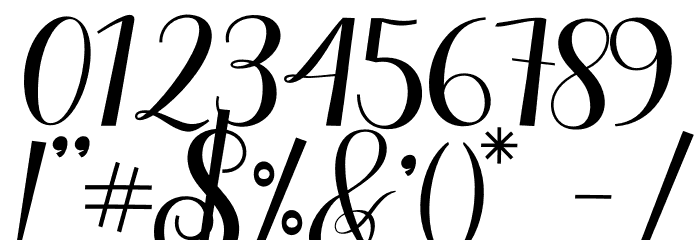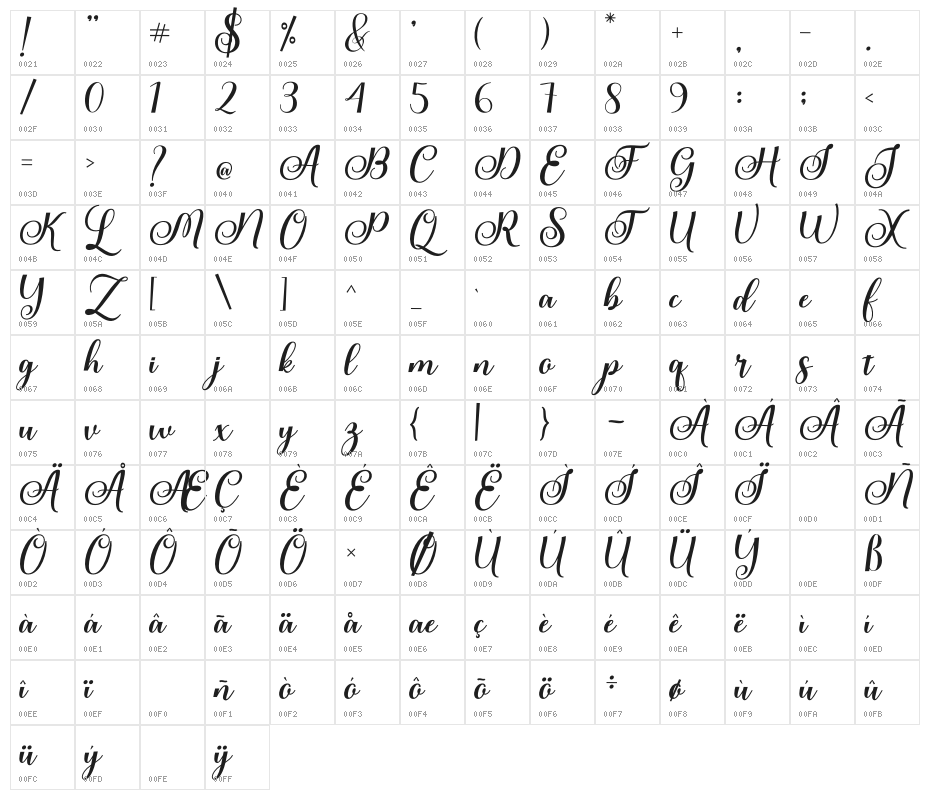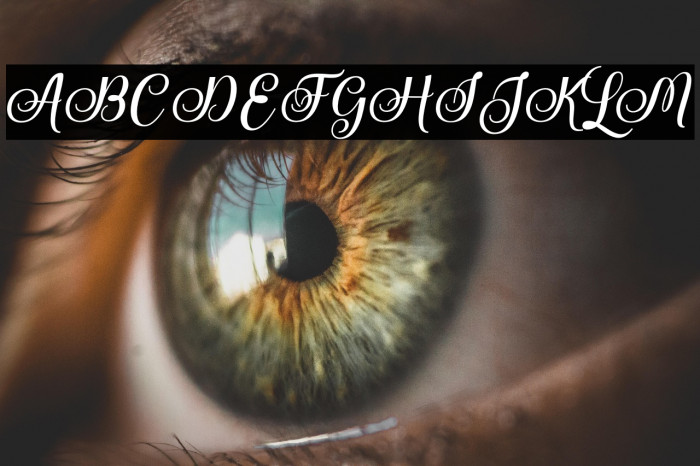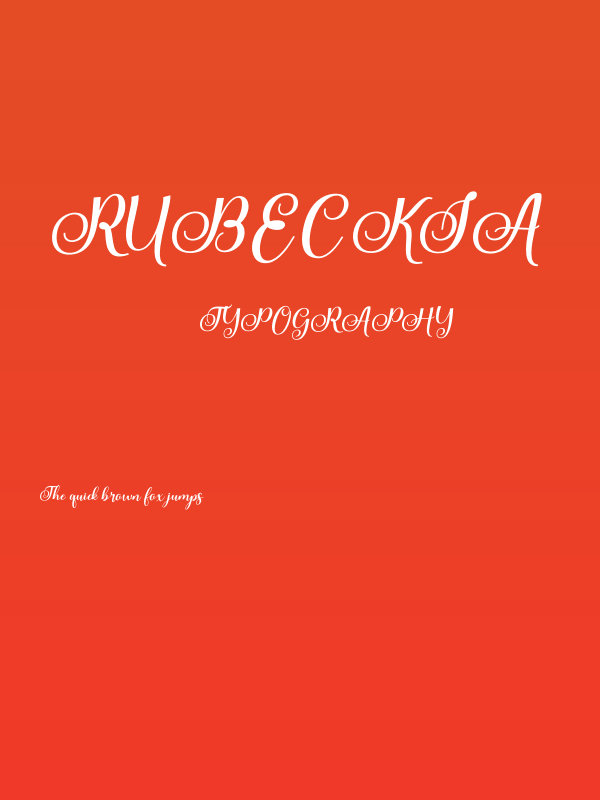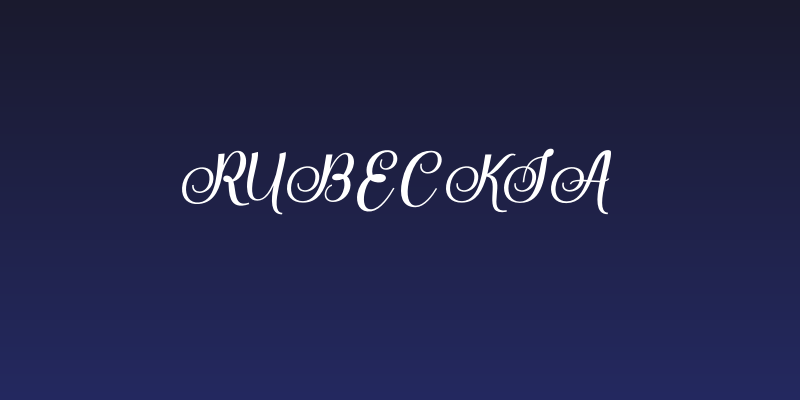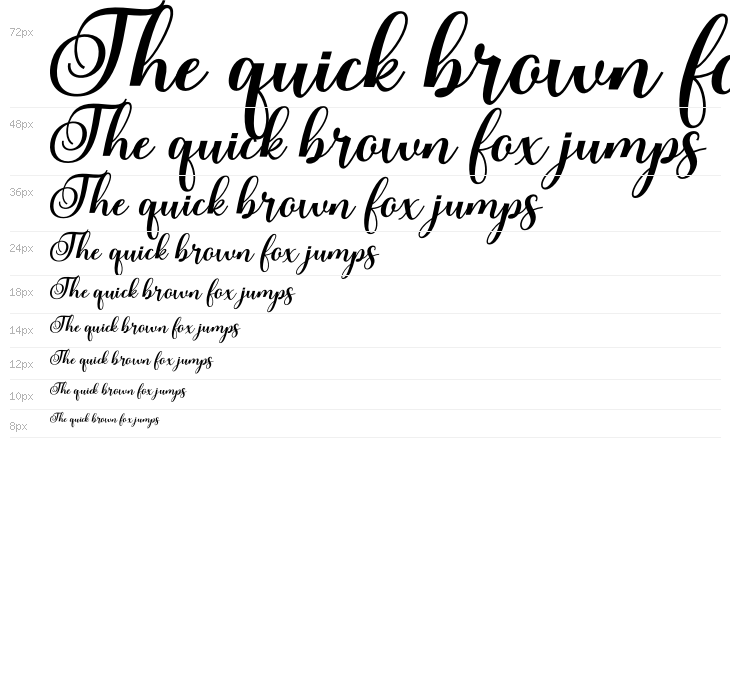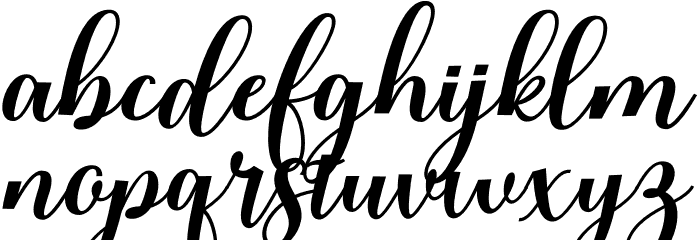
Rubeckia Font
Rubeckia Description
This elegant script font features flowing, cursive letters with a sophisticated flair. The uppercase letters are adorned with graceful loops and swirls, giving them a decorative and ornate appearance. The lowercase letters maintain a consistent, smooth flow, enhancing readability while retaining an artistic touch. The numerals are stylishly designed, complementing the overall aesthetic of the font. Special characters are crafted with the same attention to detail, ensuring a cohesive look across all glyphs. This font exudes a sense of luxury and refinement, making it ideal for projects that require a touch of elegance.